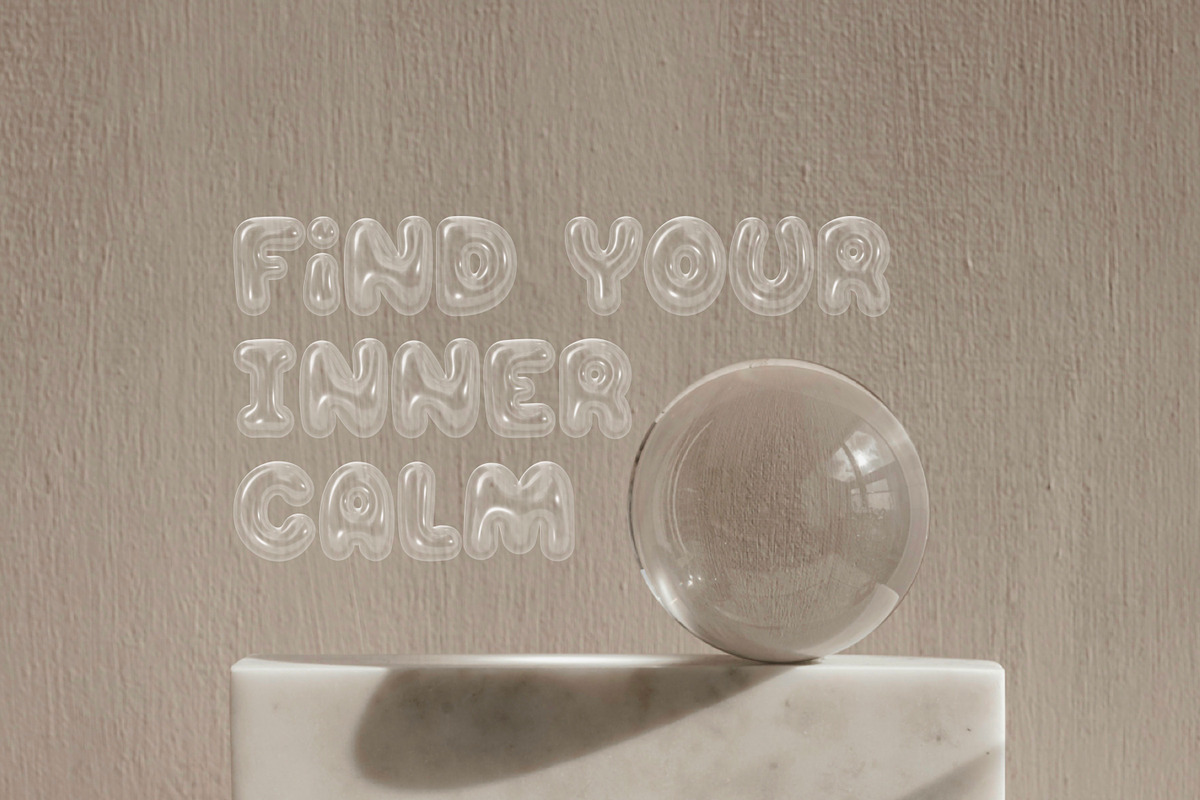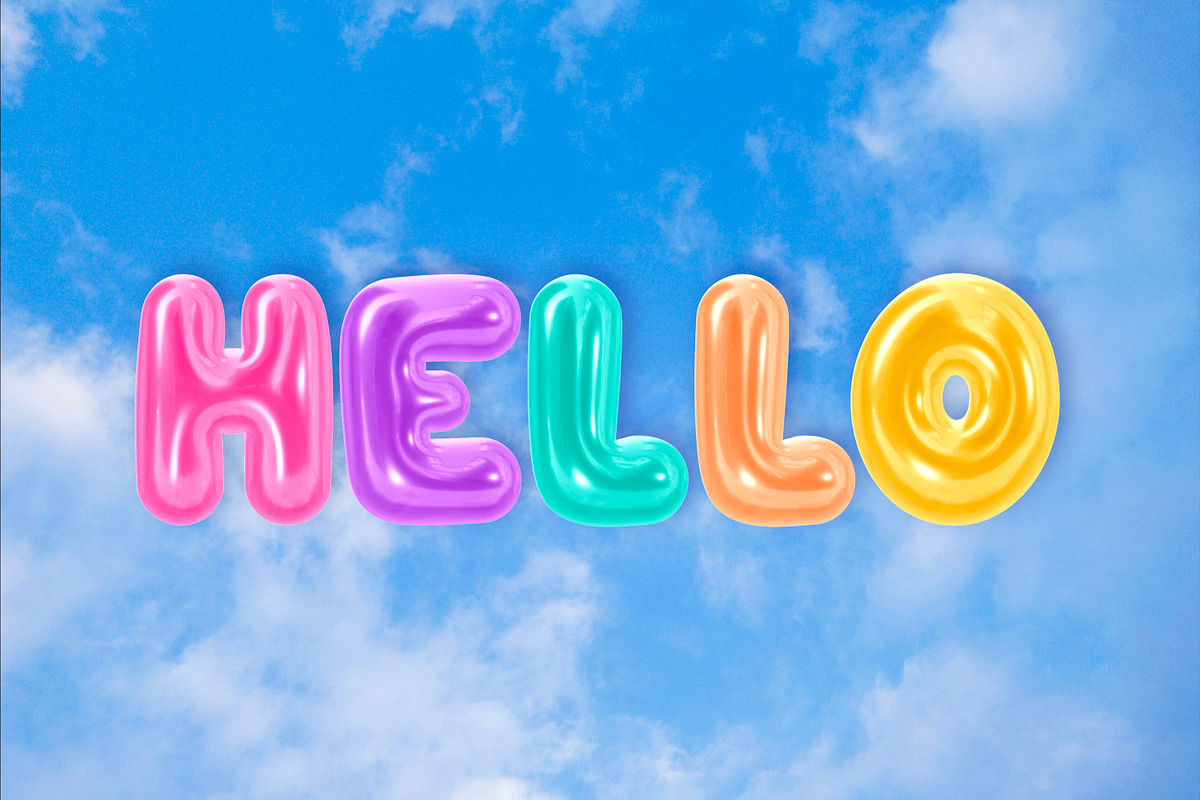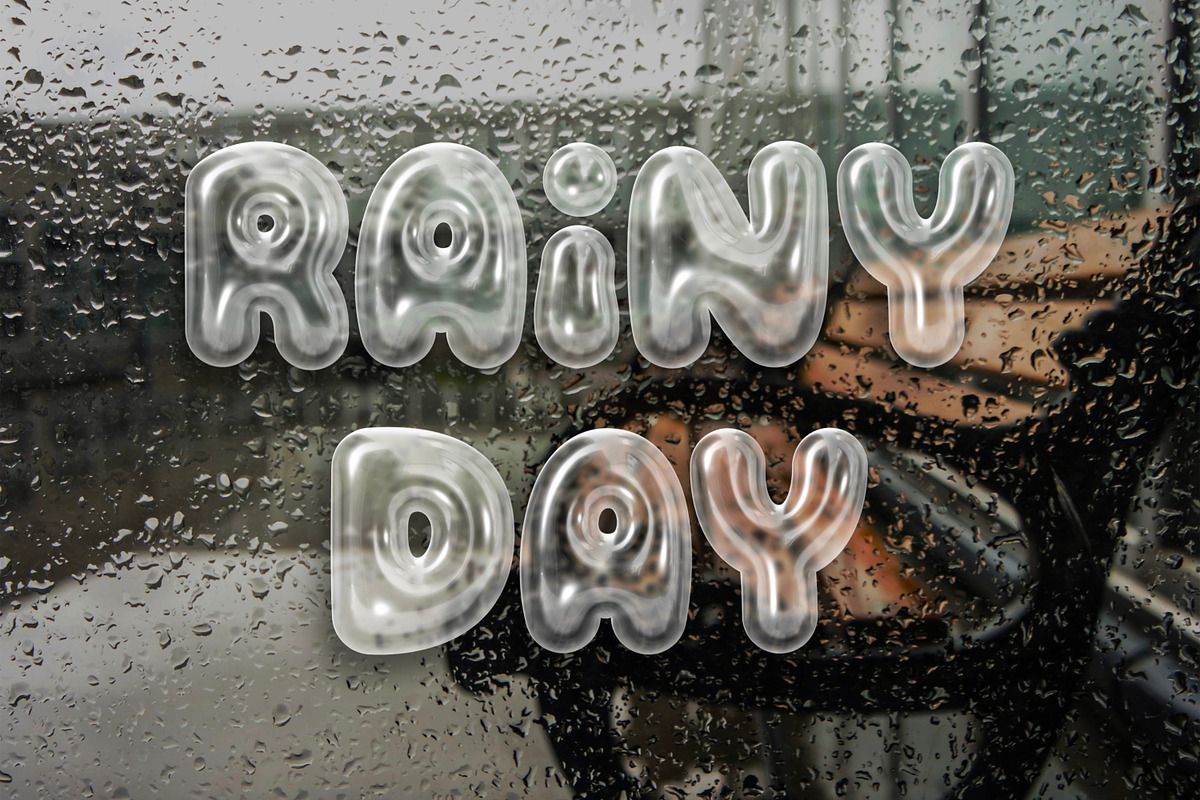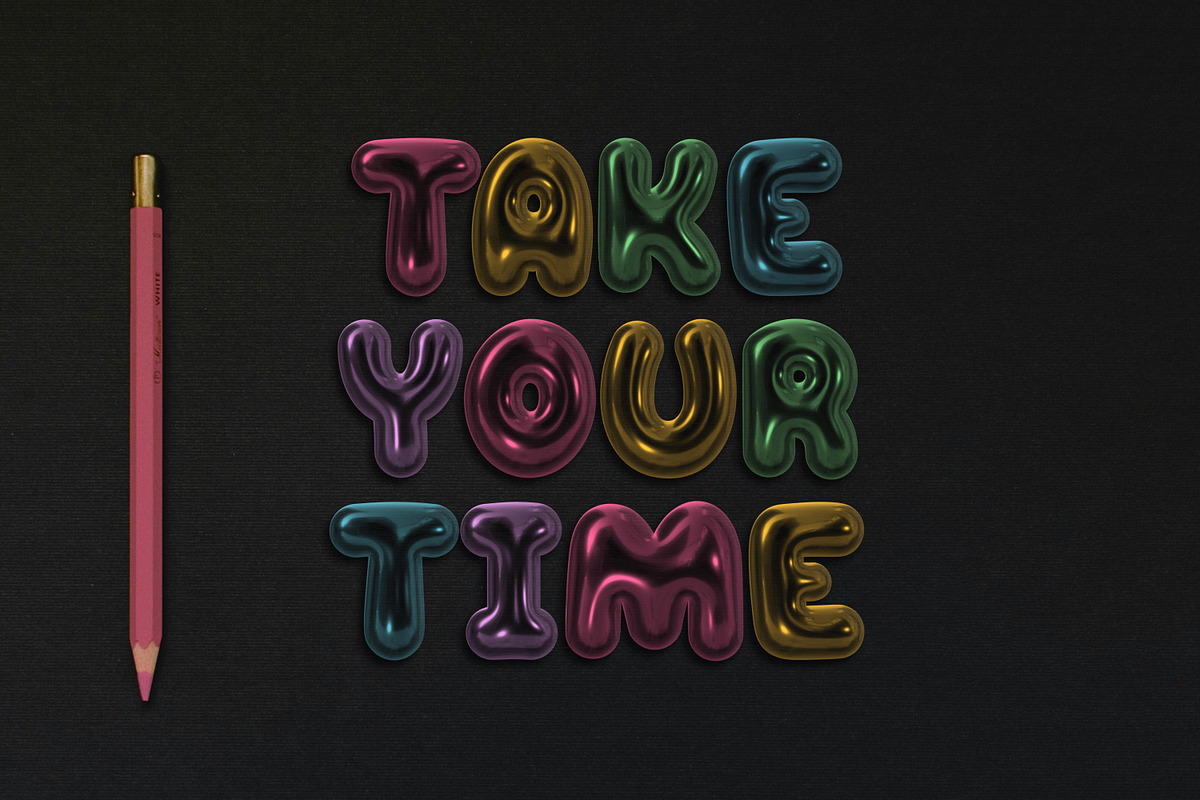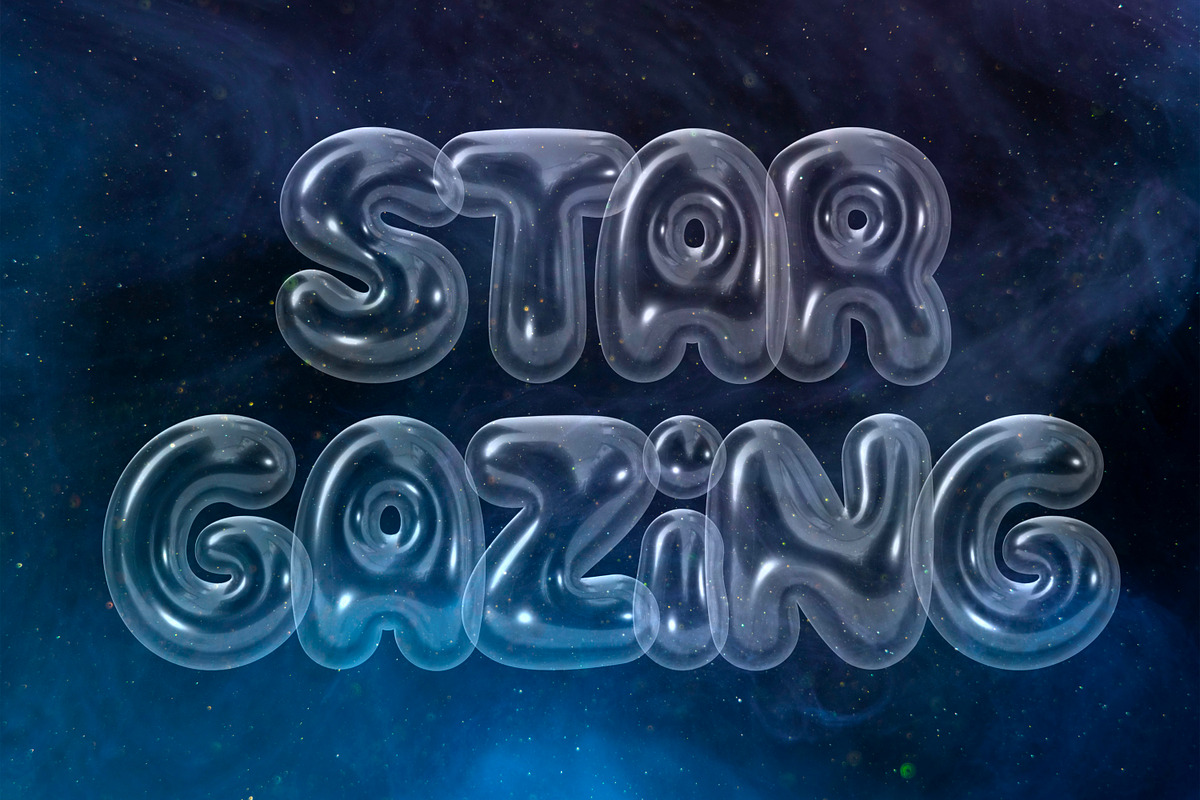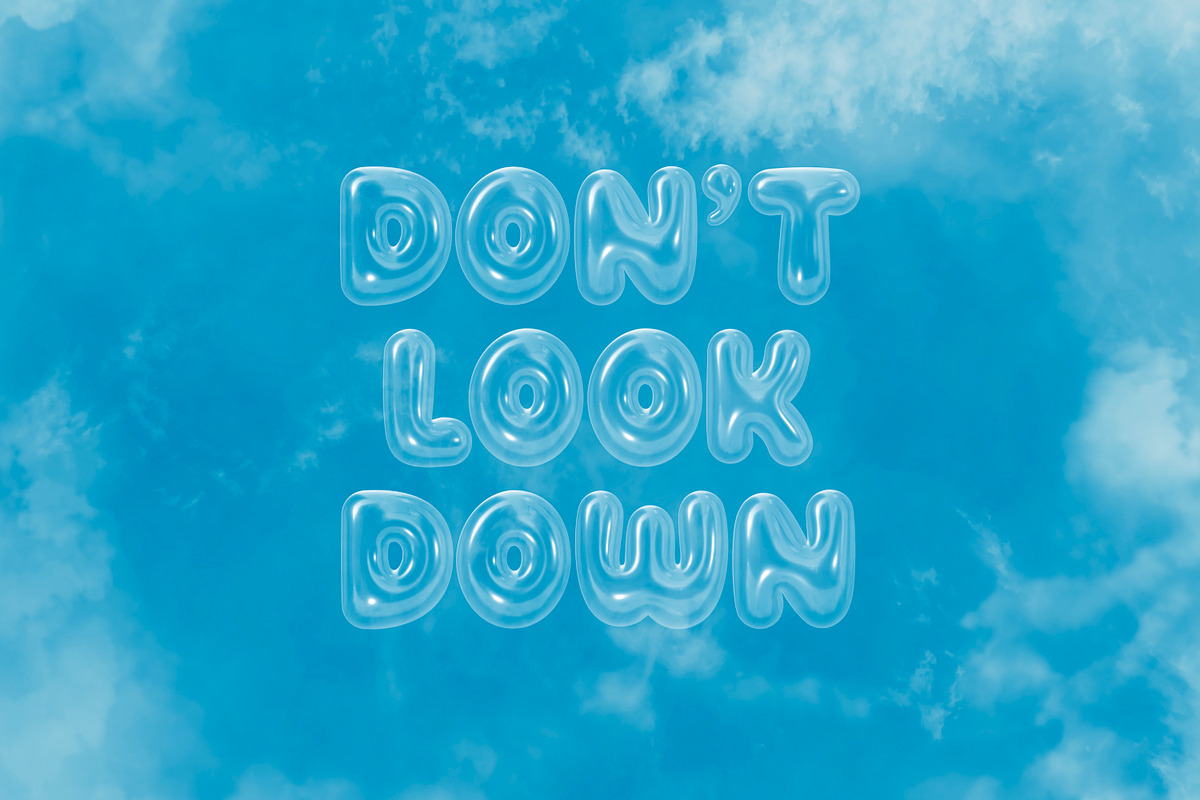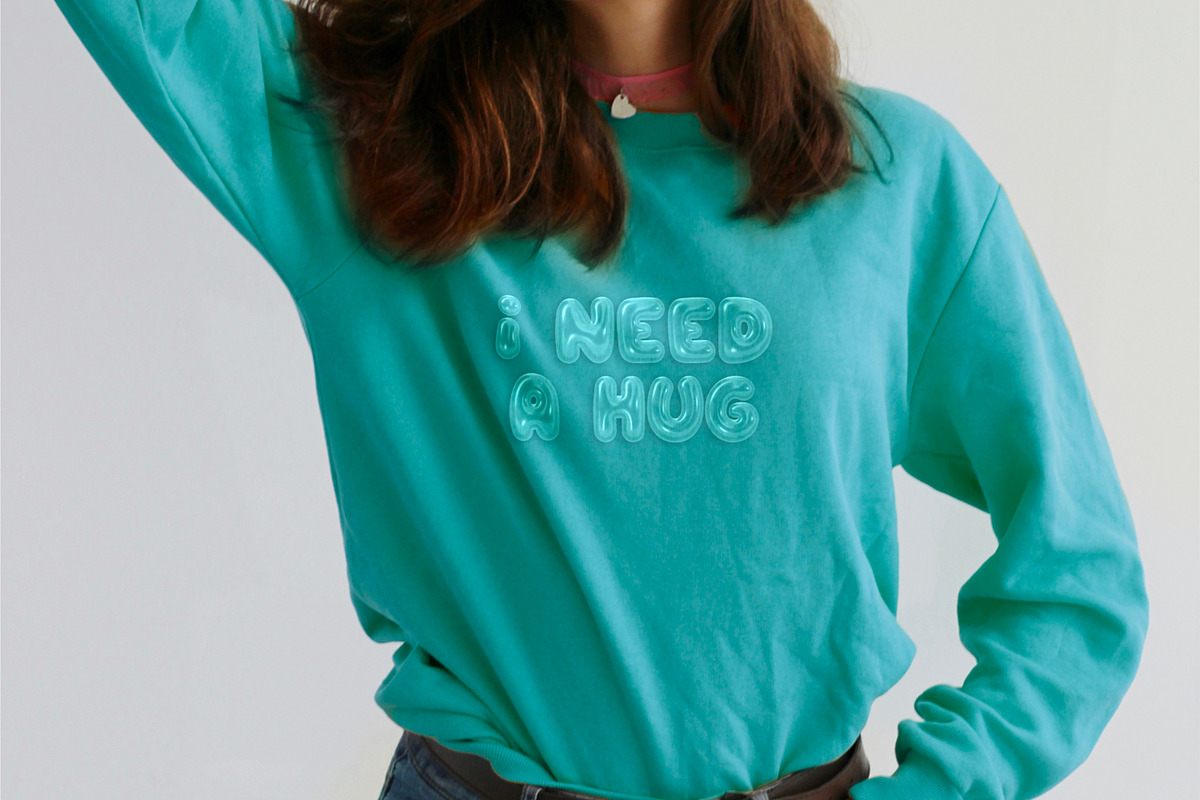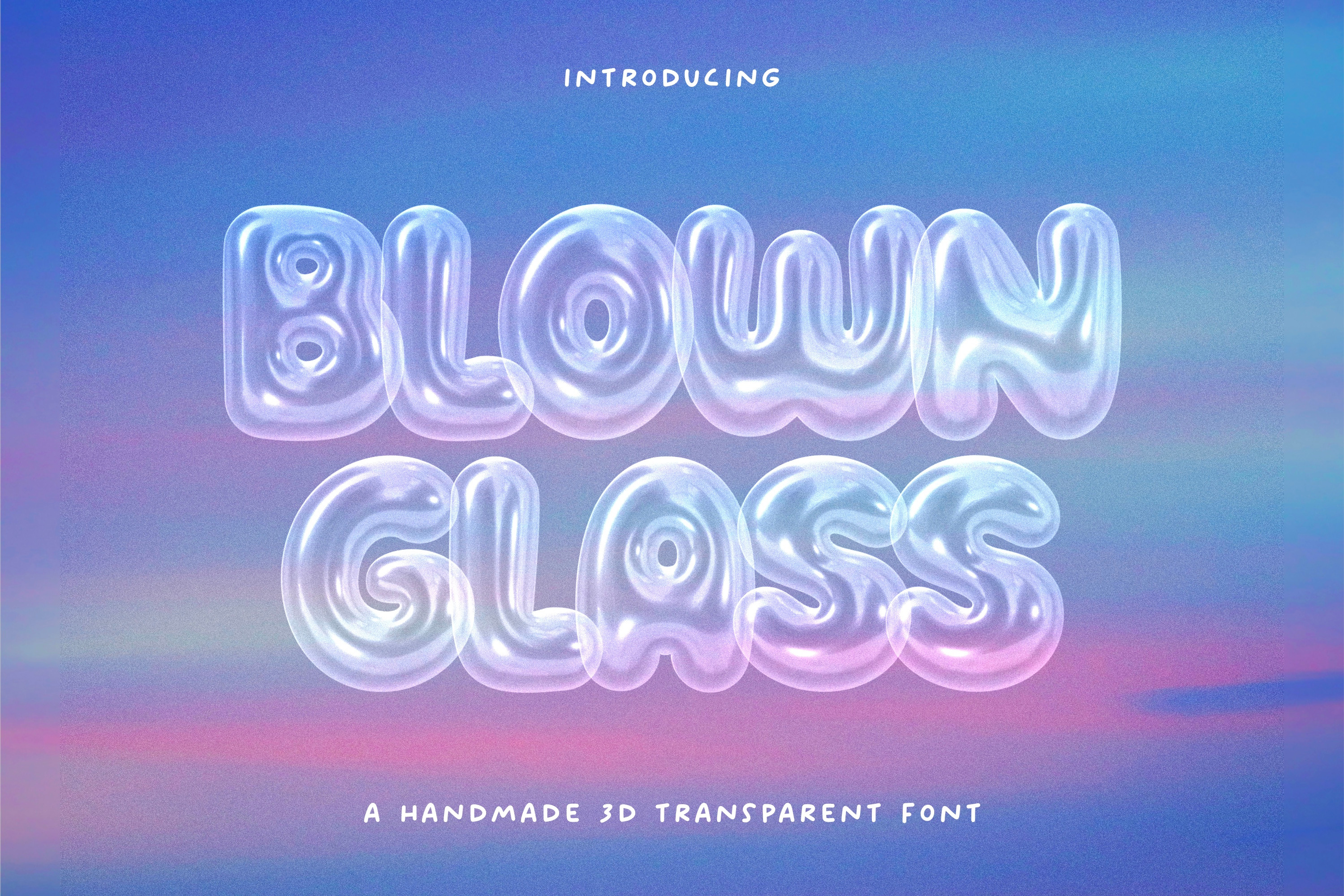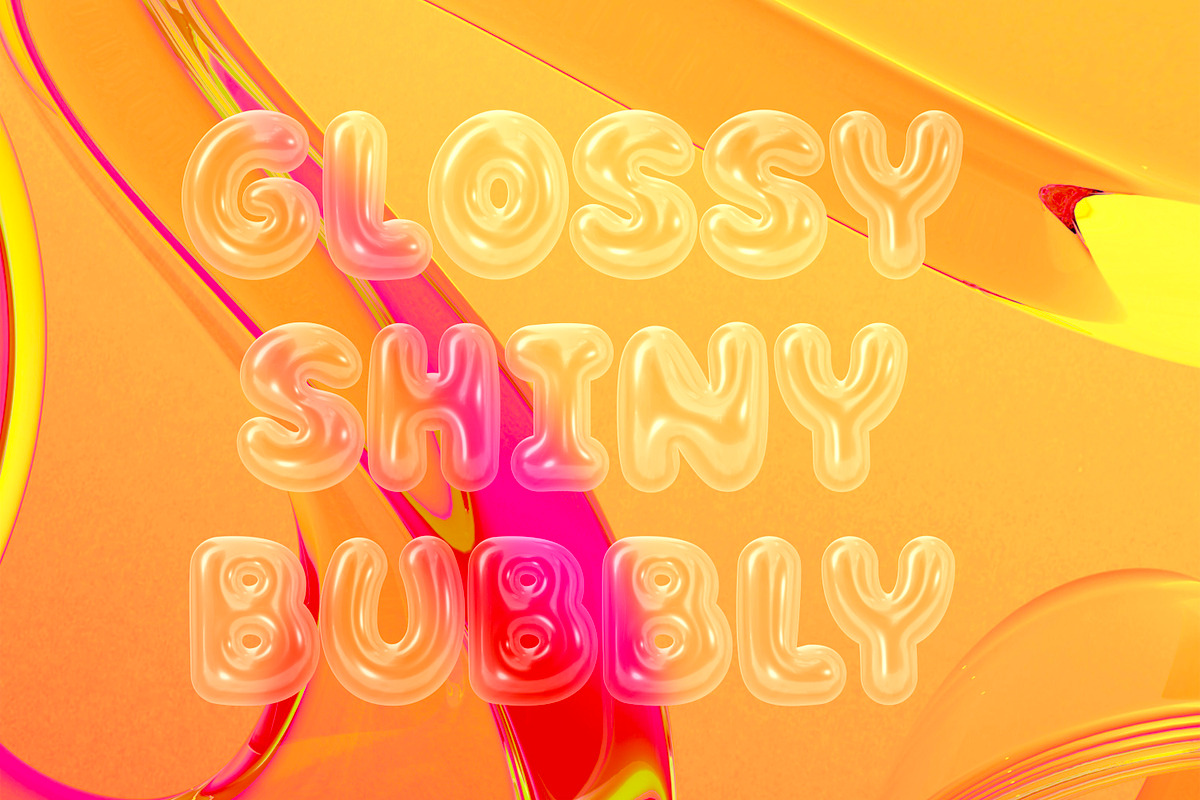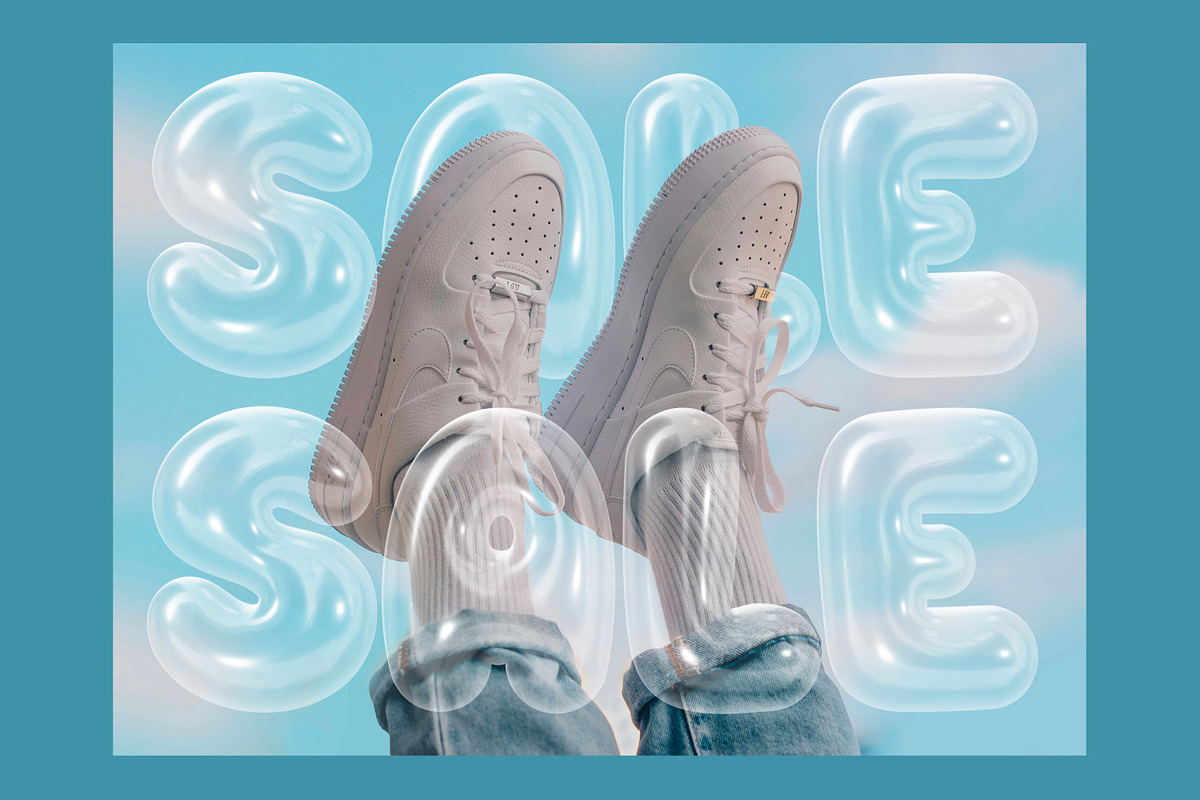
Blown Glass 3D SVG Bubble Color Font
Introducing the Blown Glass color font! This unique, 3D hand drawn font is a puffy, shiny, transparent, all caps font. Since this font has transparency, you’ll want to try to create and/or use backgrounds that suit this feature. It would be absolutely perfect for casual, playful designs on stickers, invitations, flyers, t-shirts, posters, children’s branding, magazines, and much more!